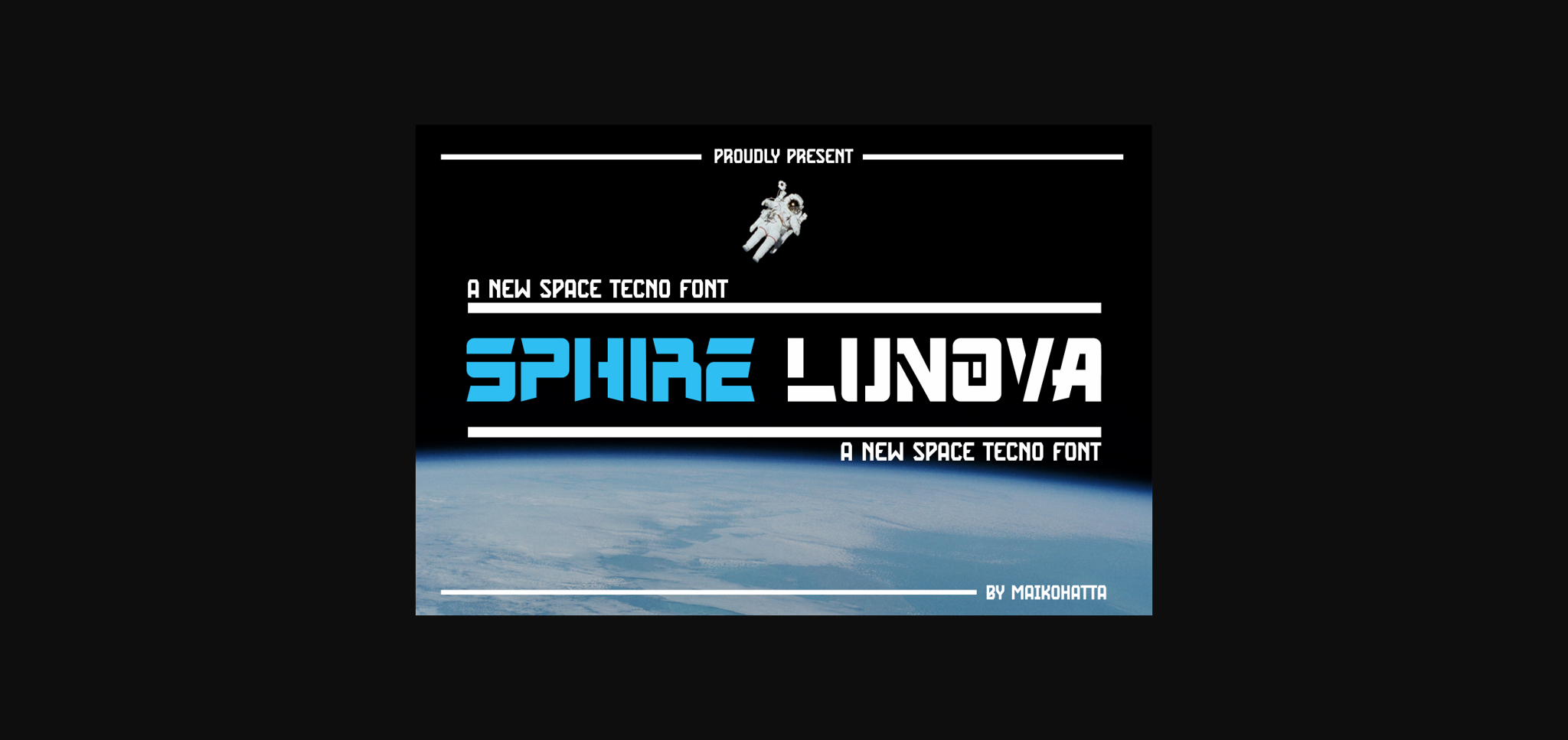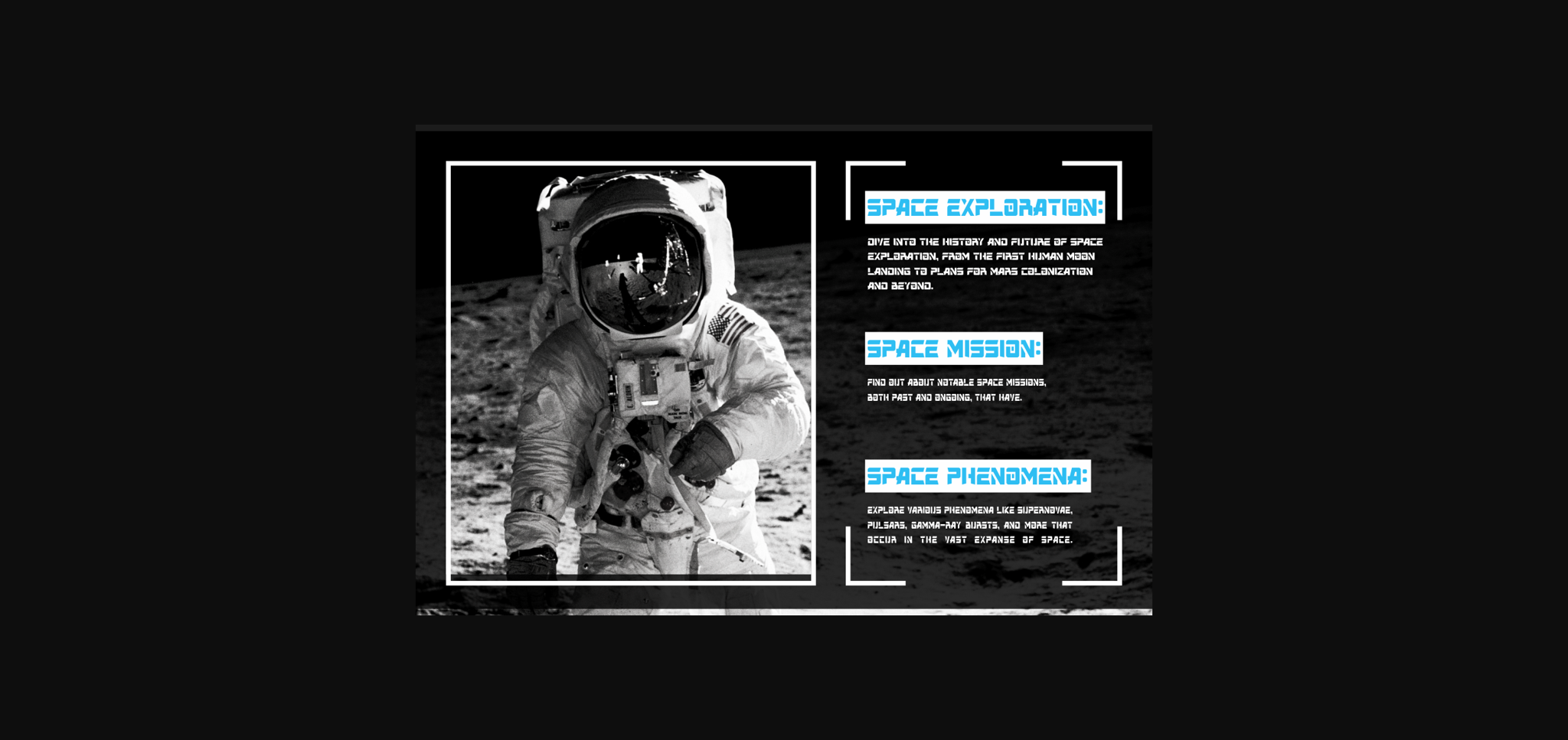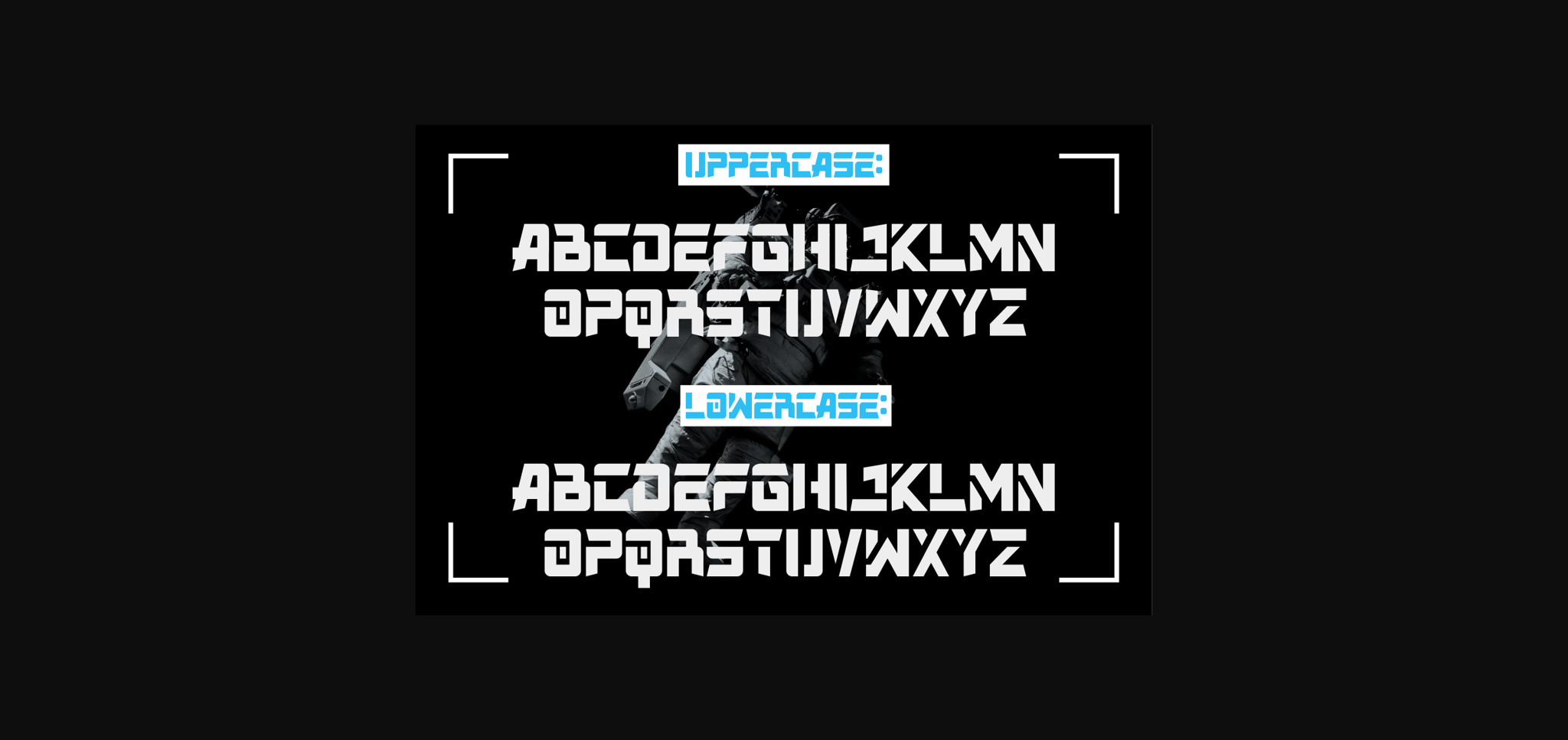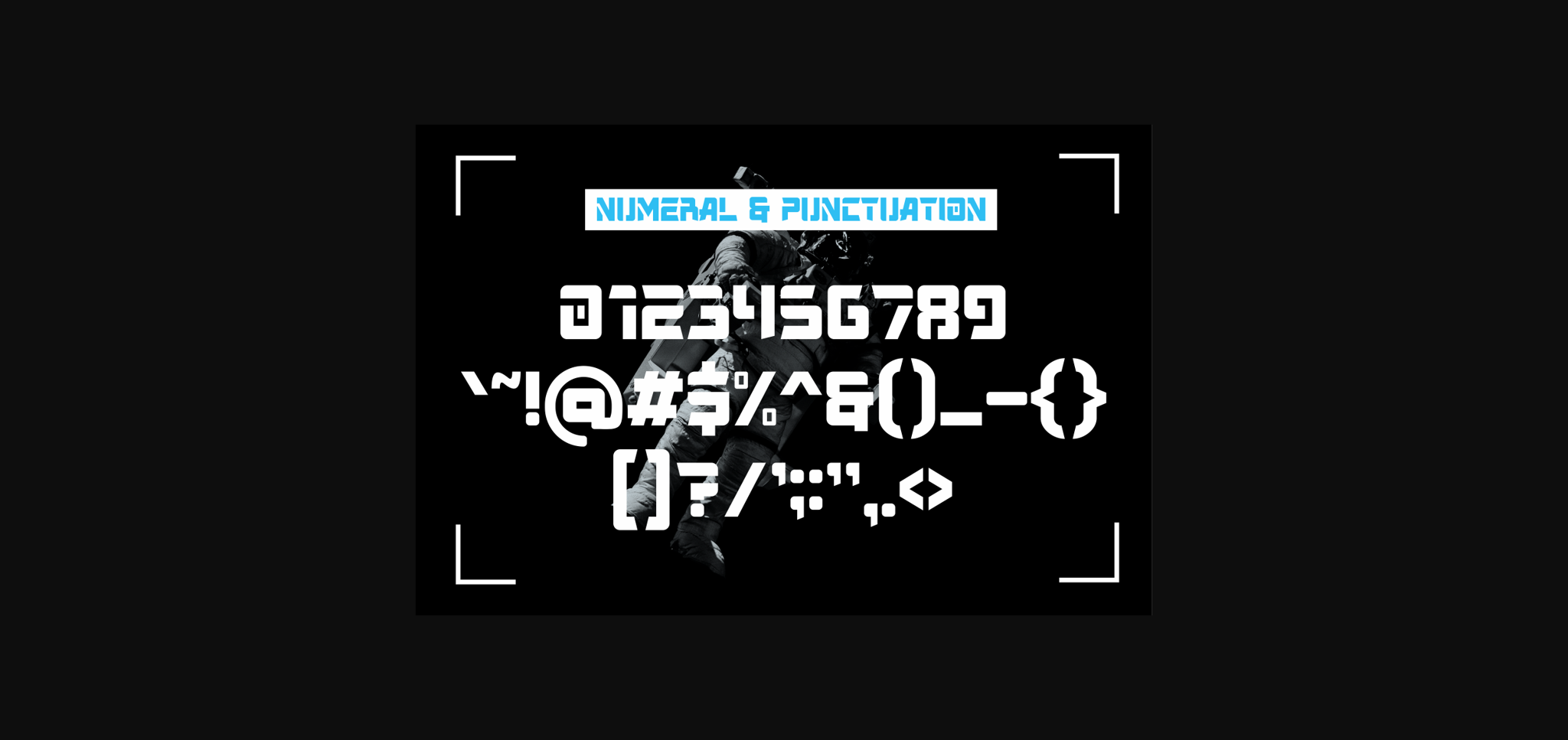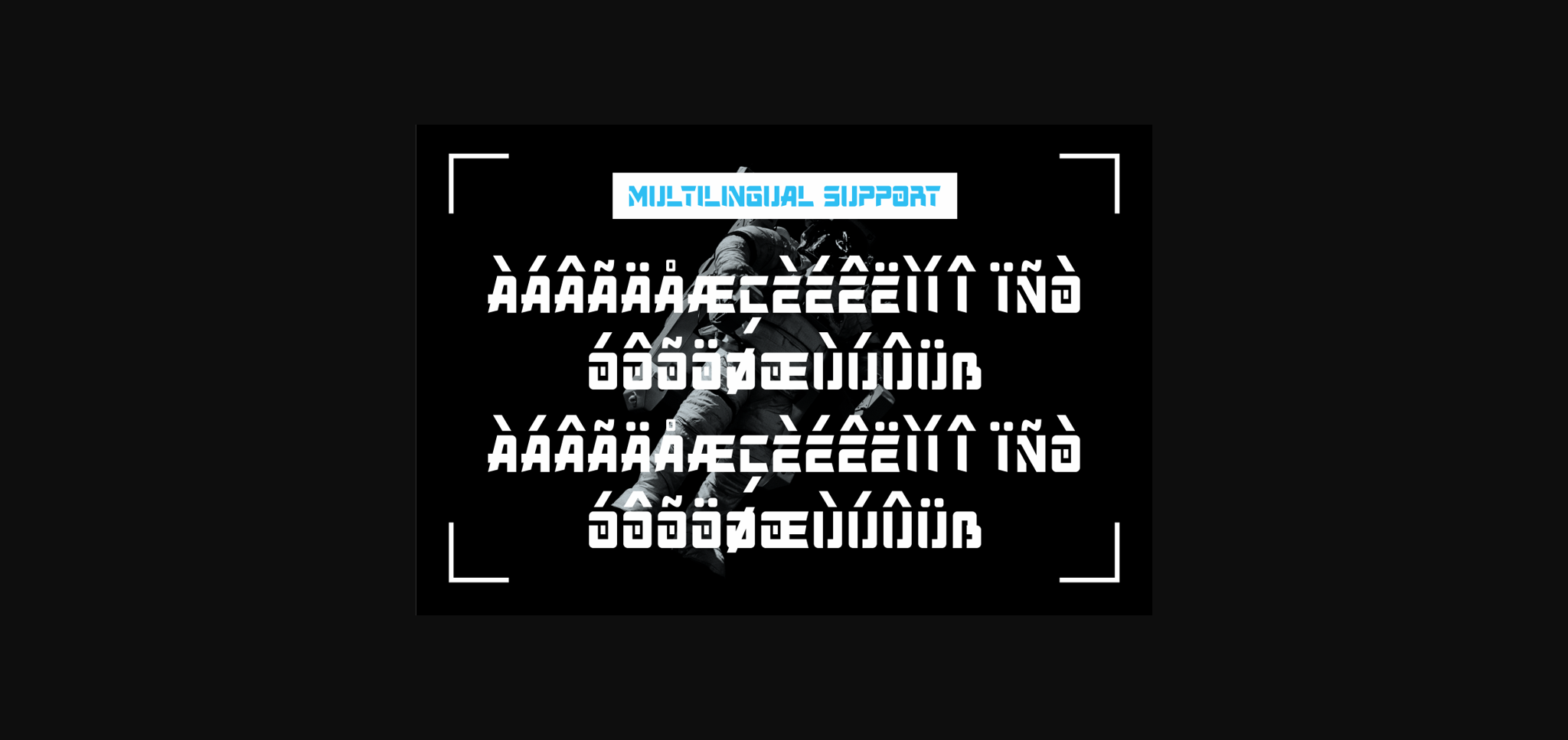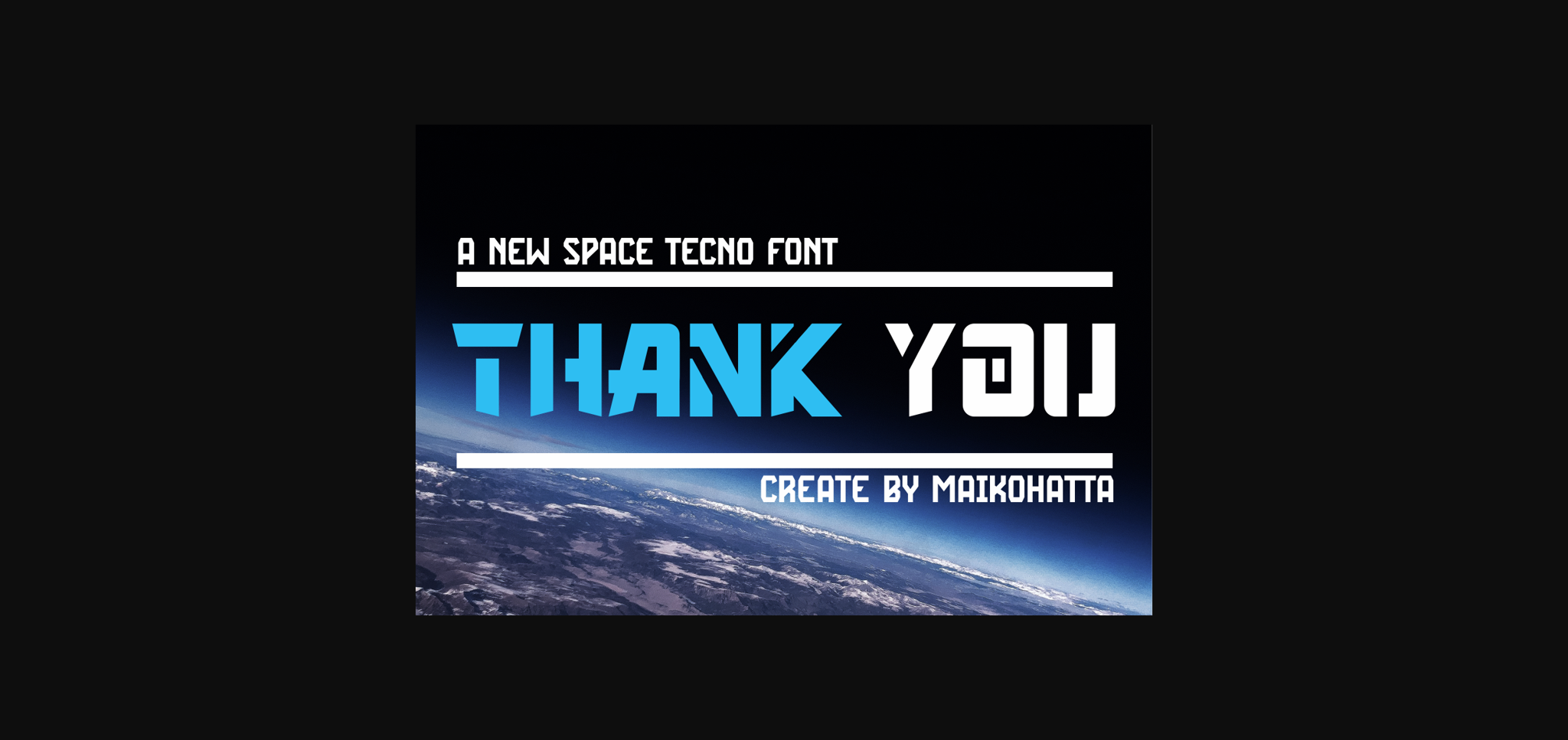
About Sphire Lunova Font
This Font is a type of lettering that features a futuristic design inspired by advanced technology. Sphire Lunova reflects the digital era and technological advancements, bringing a sense of modernity, innovation, and energy to any design. With sharp lines, geometric letter shapes, and futuristic elements, this font is suitable for projects related to technology, robotics, science, and modern lifestyle.